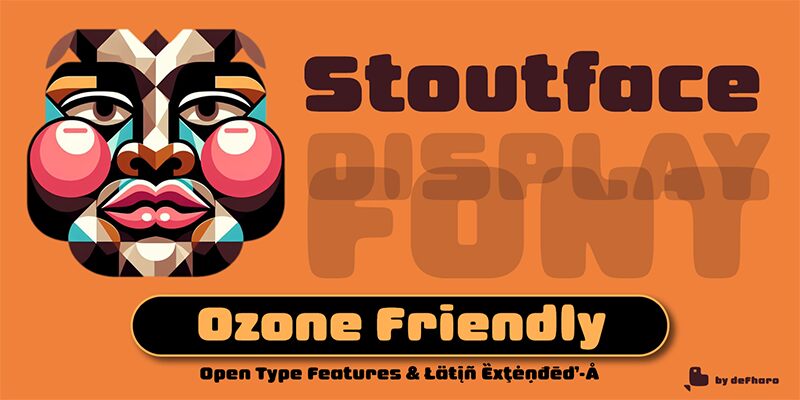
Stoutface is a bold, expanded display font that immediately grabs attention with its striking presence. Designed by Fernando Haro, this font exudes strength and authority through its substantial letterforms and generous width. The geometric, angular shapes and sharp edges lend Stoutface a modern, industrial aesthetic, making it well-suited for large-scale applications such as headlines, posters, and branding materials. Its bold personality ensures Stoutface stands out, making it an excellent choice for projects that demand a powerful, impactful visual statement.
Stoutface's versatility extends beyond eye-catching headlines. Its expansive width and robust character make it an ideal selection for emphatic text treatments, adding weight and emphasis to short snippets of copy. Designers can leverage Stoutface's distinctive style to create memorable typographic designs that leave a lasting impression on the viewer.
Stoutface Regular and Small Caps, two sans serif typefaces that combine modern boldness with a nostalgic touch. Perfect for capturing attention in great headlines and designs, these fonts come loaded with 720 glyphs and advanced Open Type features. Add sophistication and unique style to your projects with its Small Caps version, ideal for memorable designs that transcend time.